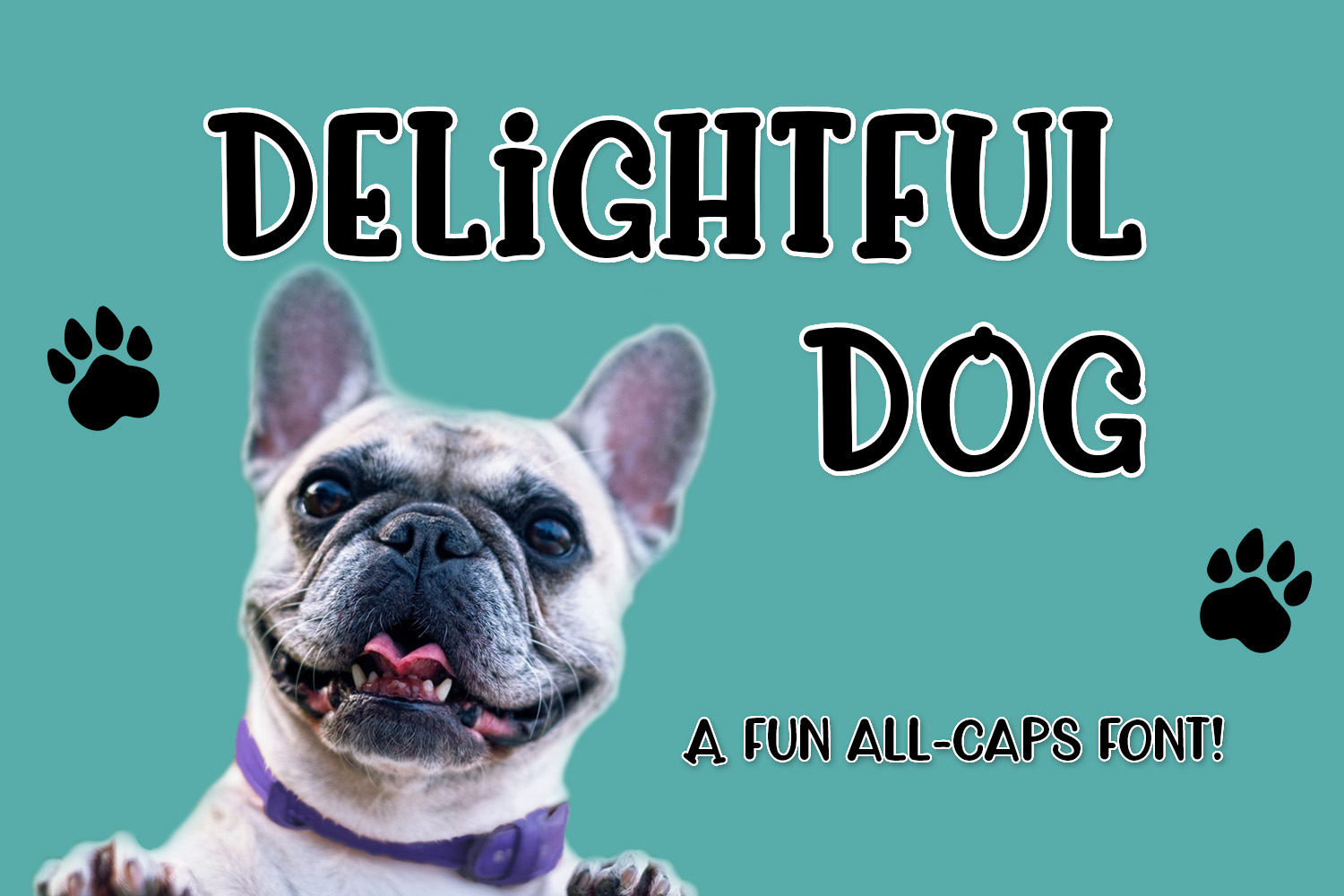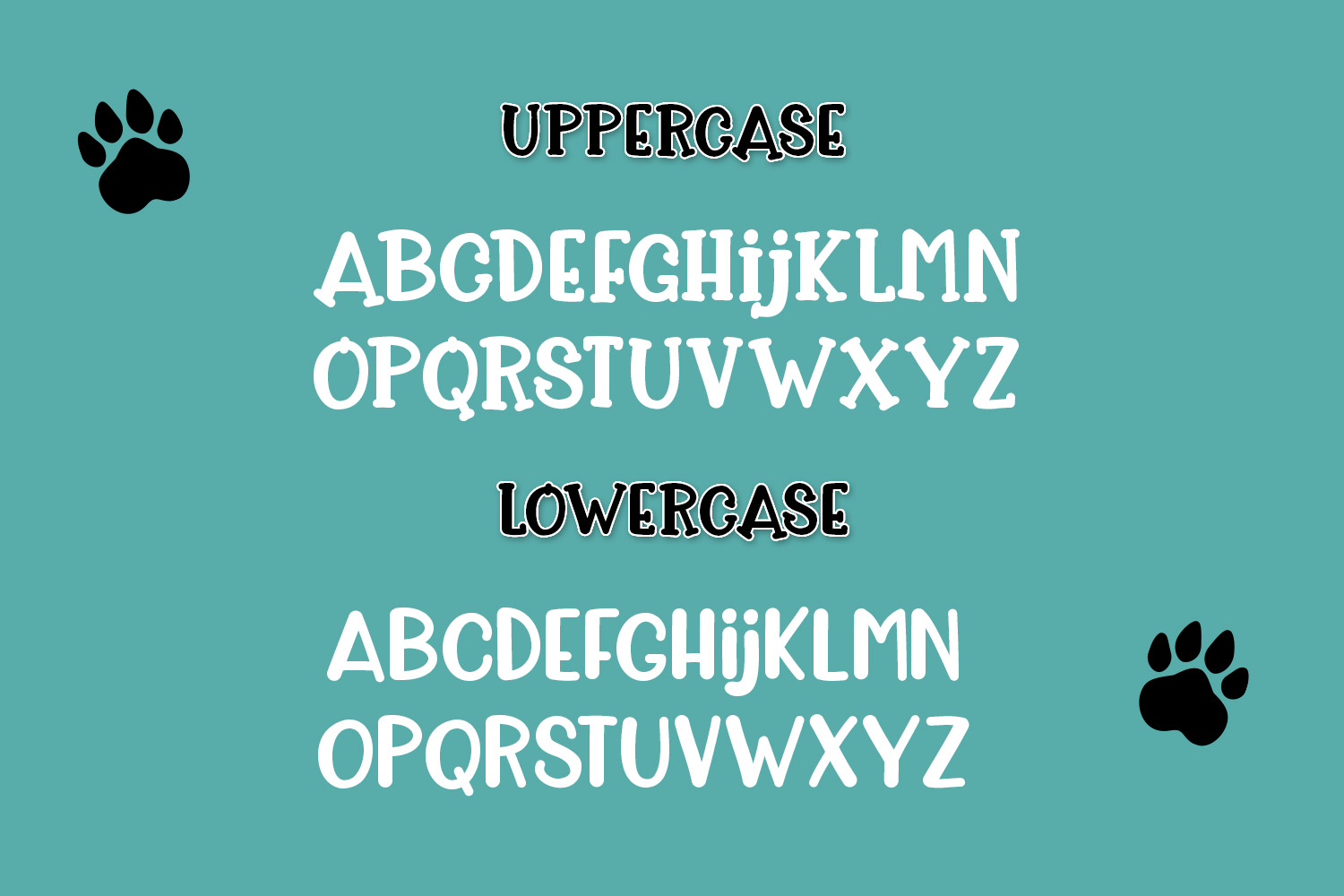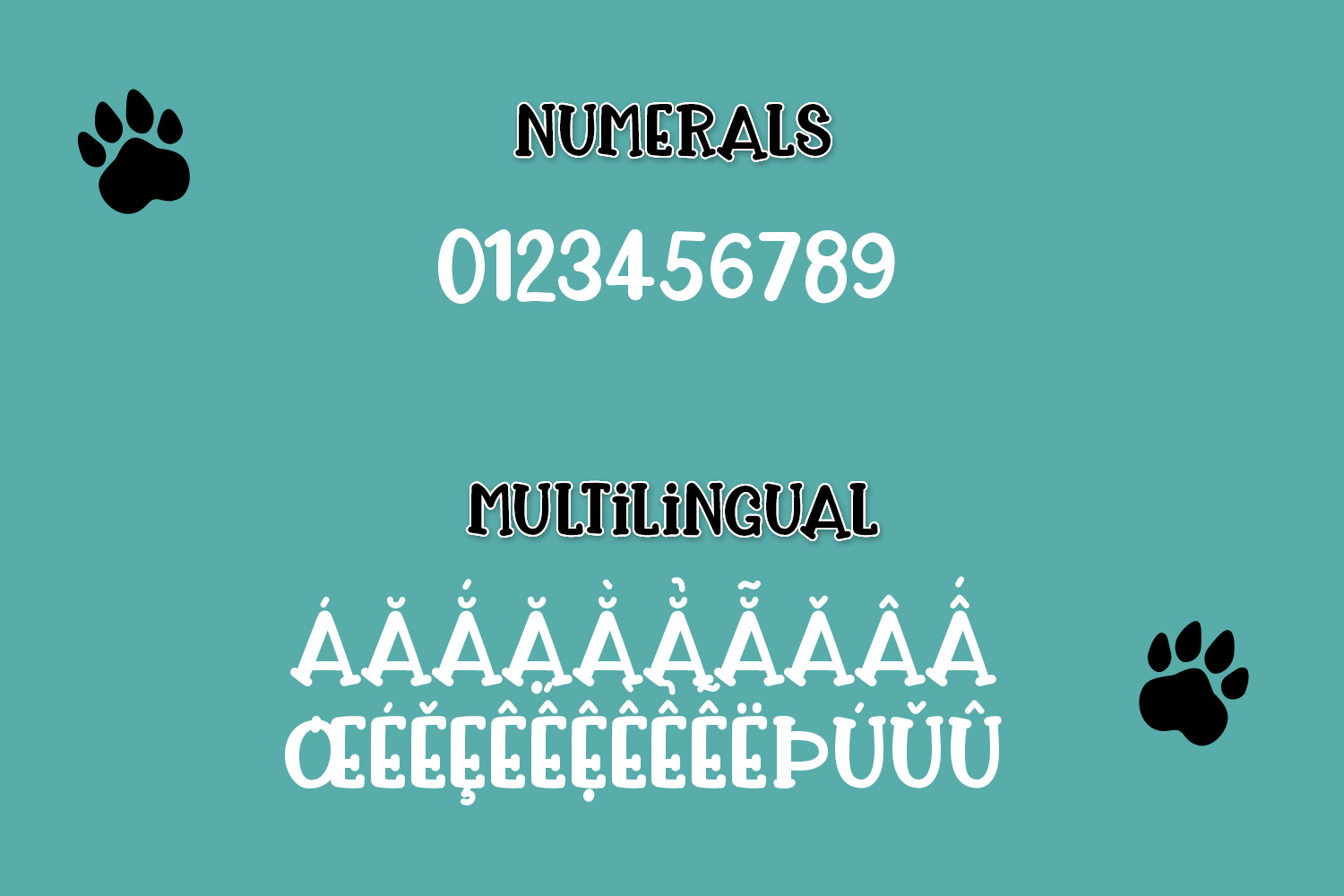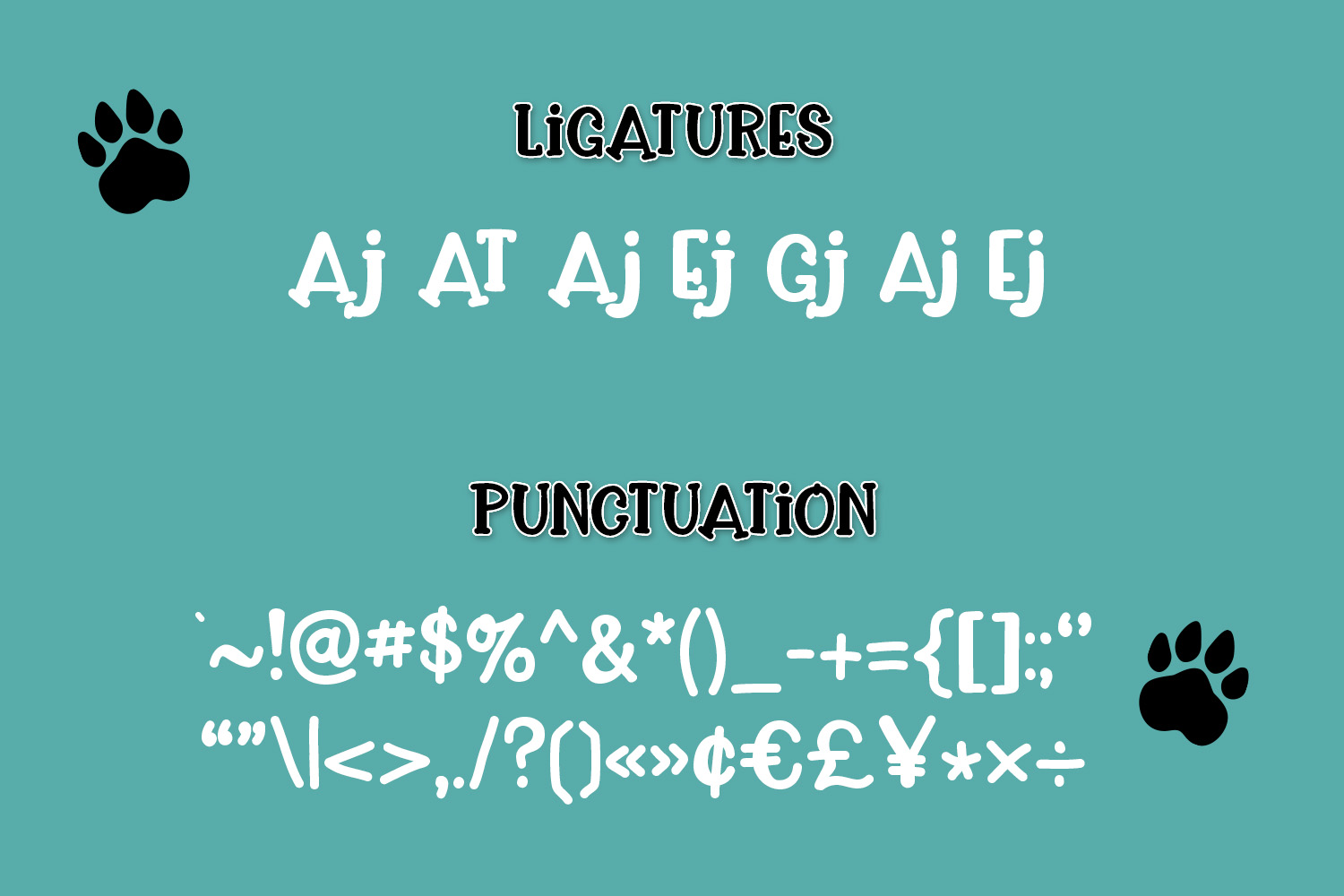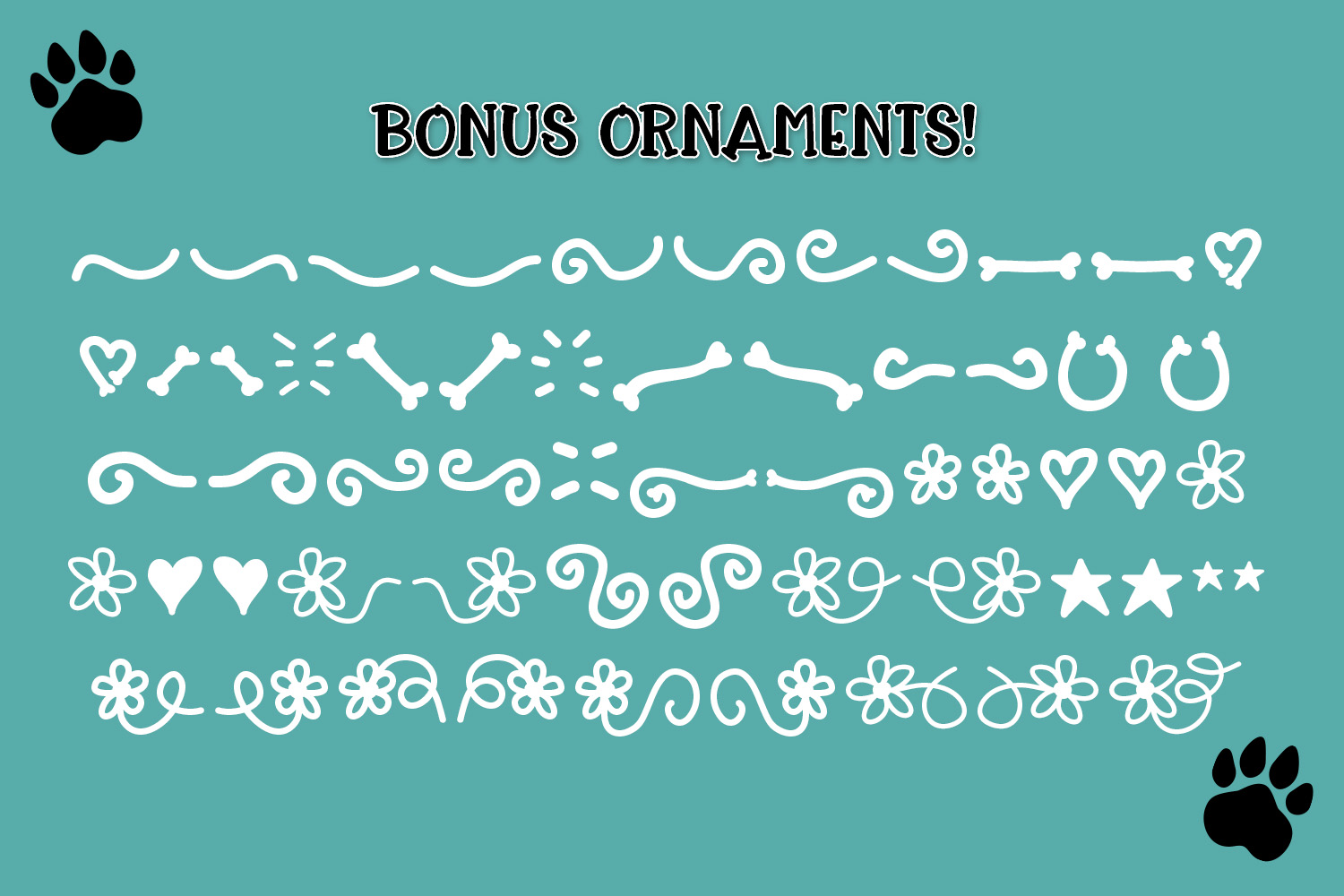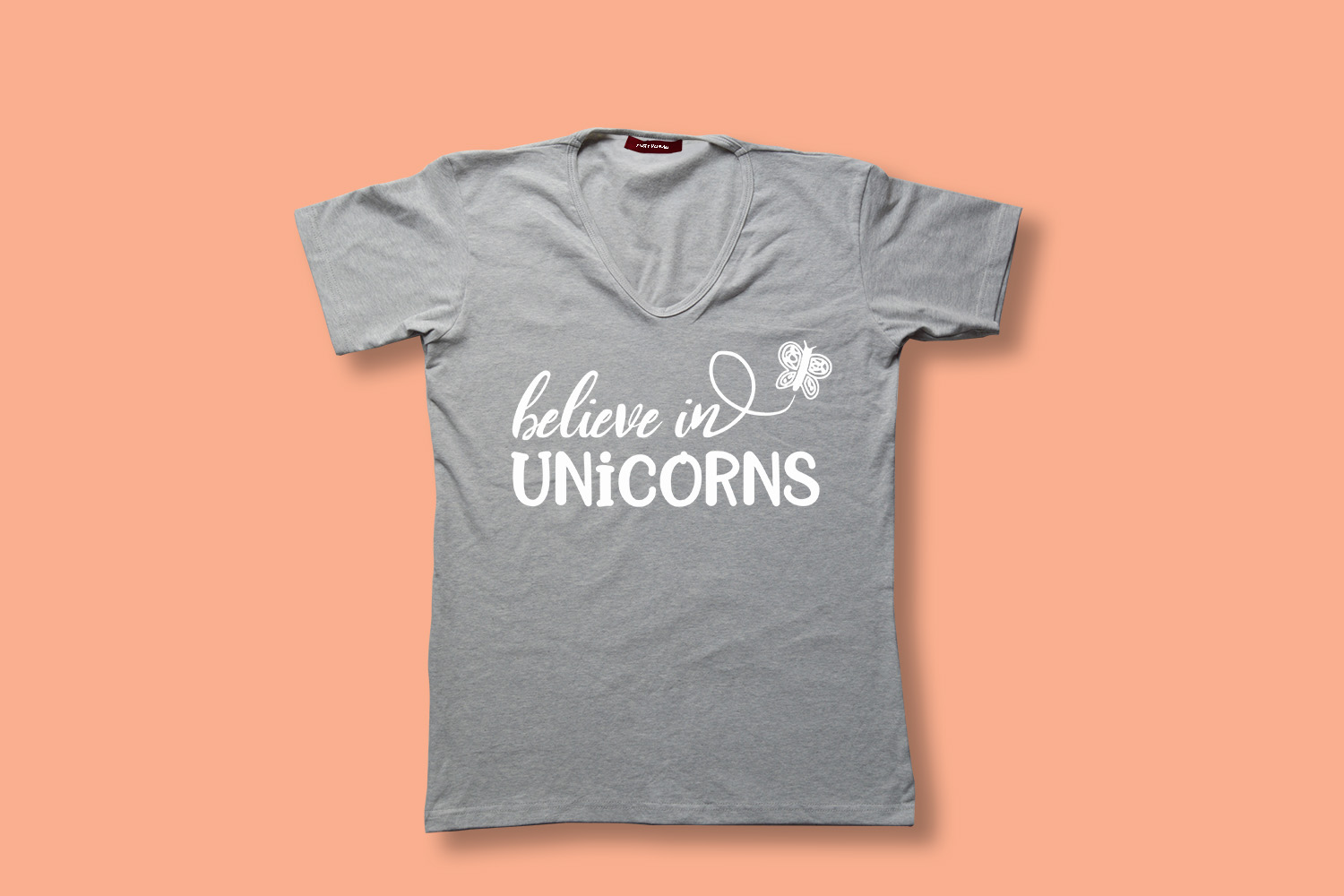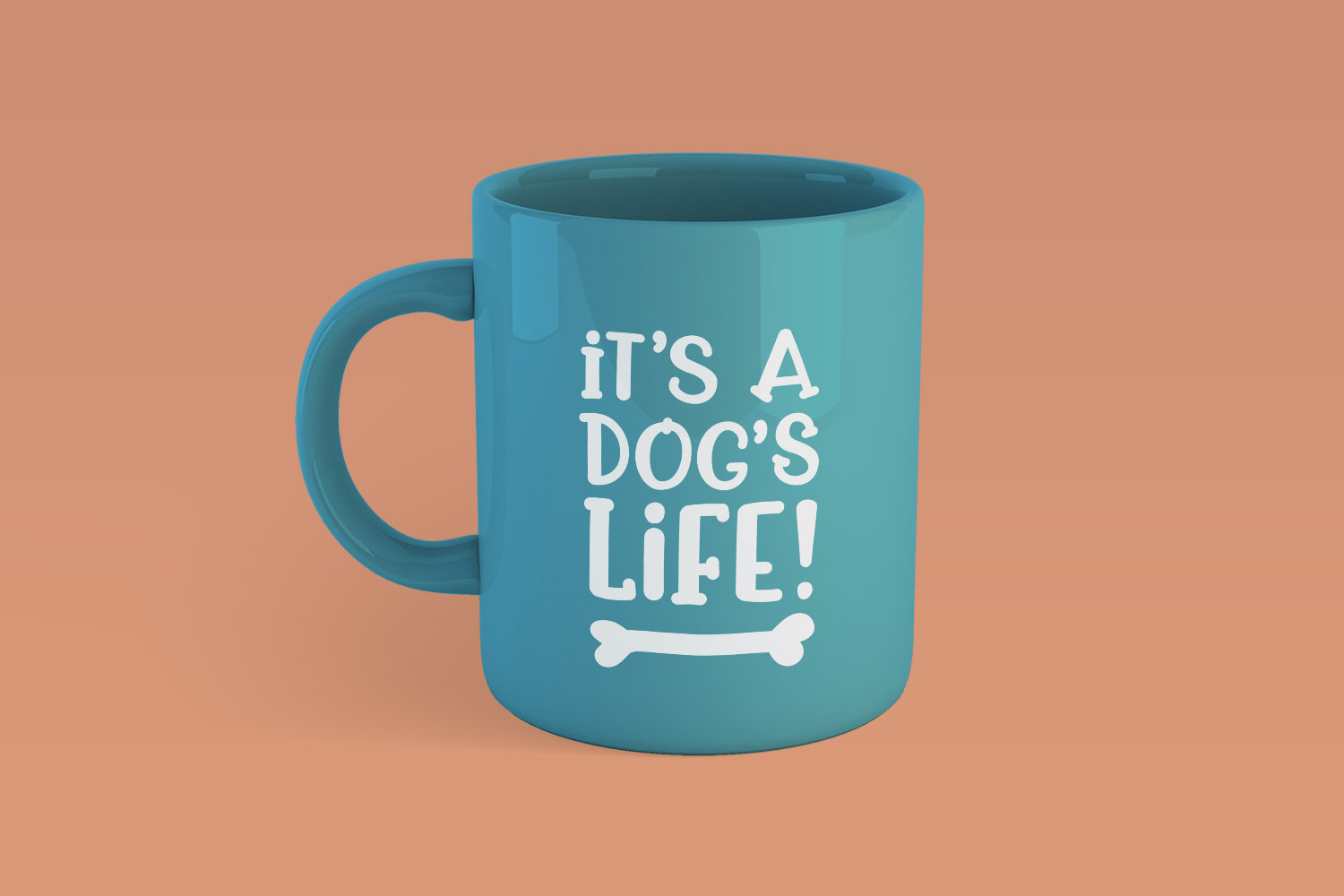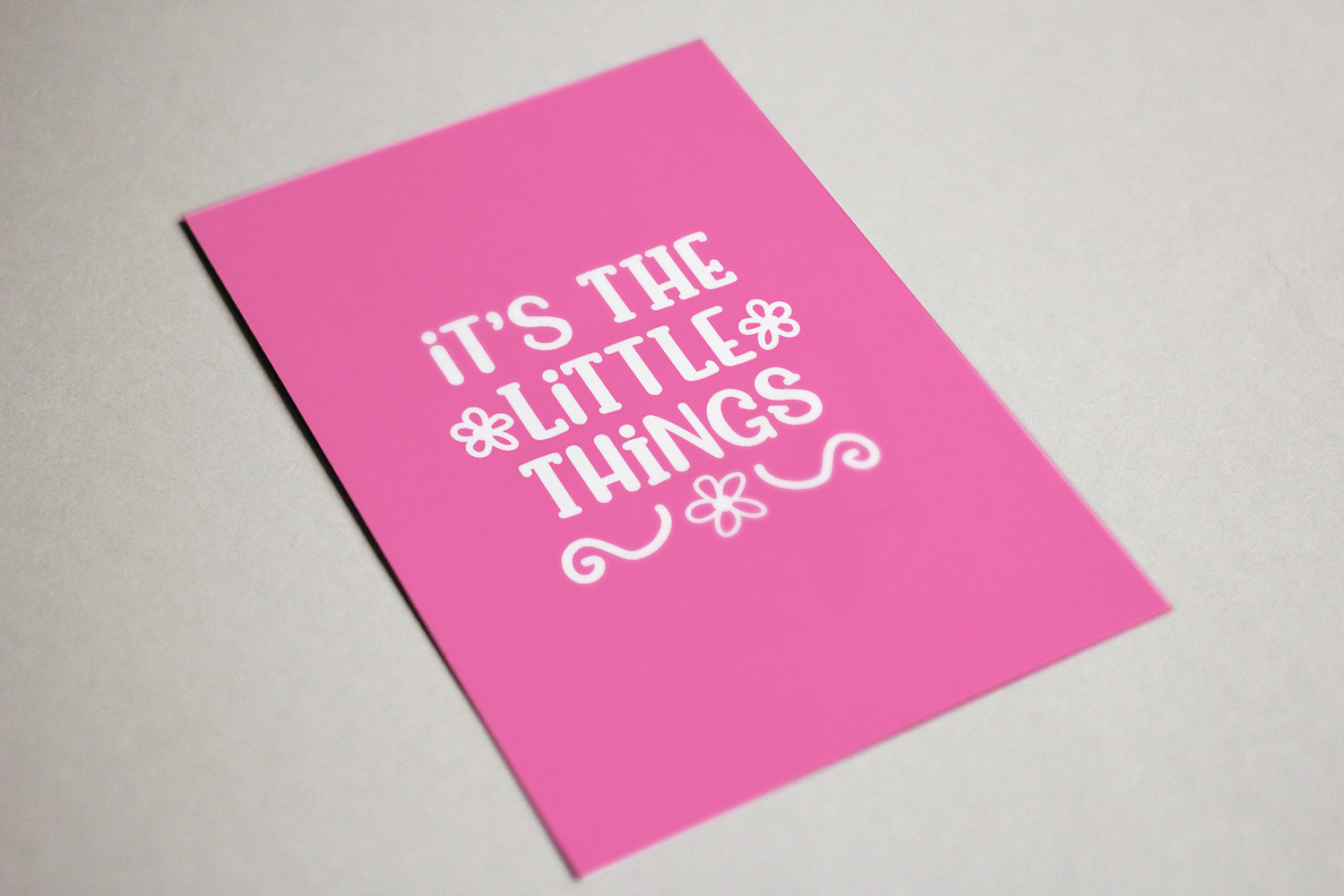
Delightful Dog Font
About Delightful Dog Font
Delightful Dog is a fun and simple to use all-caps display font! Delightful Dog looks great on shirts, mugs, covers and anything else that needs a bit of quirky fun added to it. Comes with a bonus ornaments font file including the doodles shown in the product image, hopefully making it easier for you to design your next masterpiece!